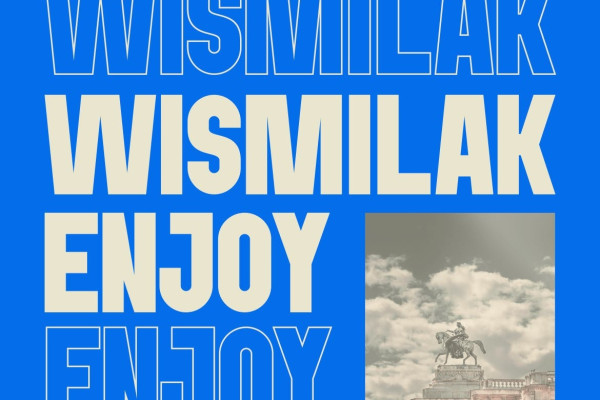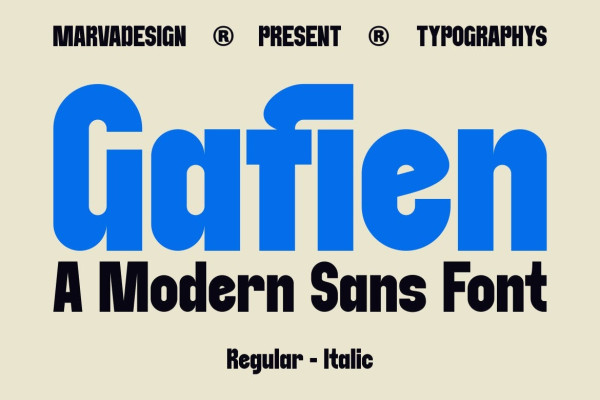
Gafien Font
Gafien Font – Modern Font Gafien Font  – Modern Font is a bold and authentic display font. The font is suitable for any branding project such as logo, product template and many more. She is exceptional in a wide range of contexts